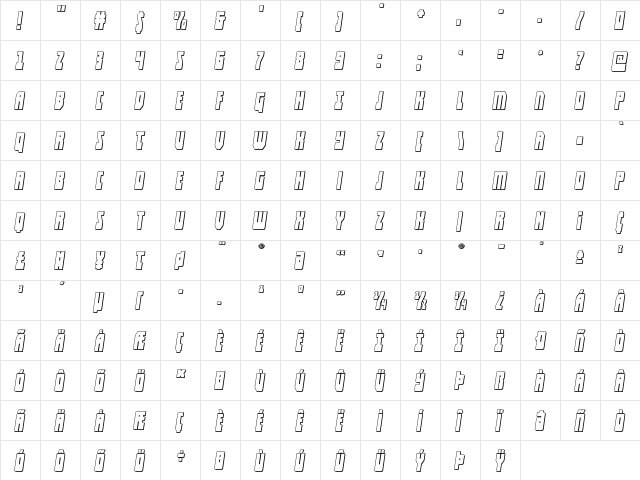
Elastic Lad 3D Expanded Italic Regular
Design Context for Elastic Lad 3D Expanded Italic Typeface
Elastic Lad 3D Expanded Italic is a composed and adaptable typeface that performs quietly and consistently across a wide range of design contexts. Its italic angle brings a sense of urgency and motion to the letterforms.